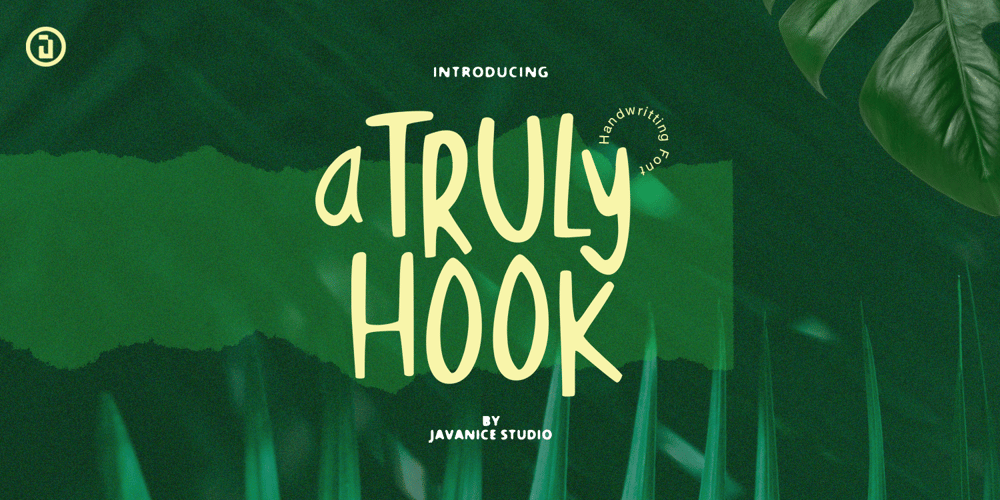
A Truly Hook
A Truly Hook font
A Truly Hook Font Family was designed by Revsani Hisyam Wardhana and published by Javanice Studio. A Truly Hook contains 1 styles and family package options. Introducing Truly Hookby Javanice Studioa Truly Hook is A Handwritting Fonta Truly Hook is perfect for branding project, apparel, labels, magazines, books, greeting / wedding cards, packaging, fashion, make up, stationery, and any type of advertising purpose or just used to express words above the background.This font includes a Truly Hook also multilingual support.Enjoy the font, feel free to comment or feedback, send me PM or email.